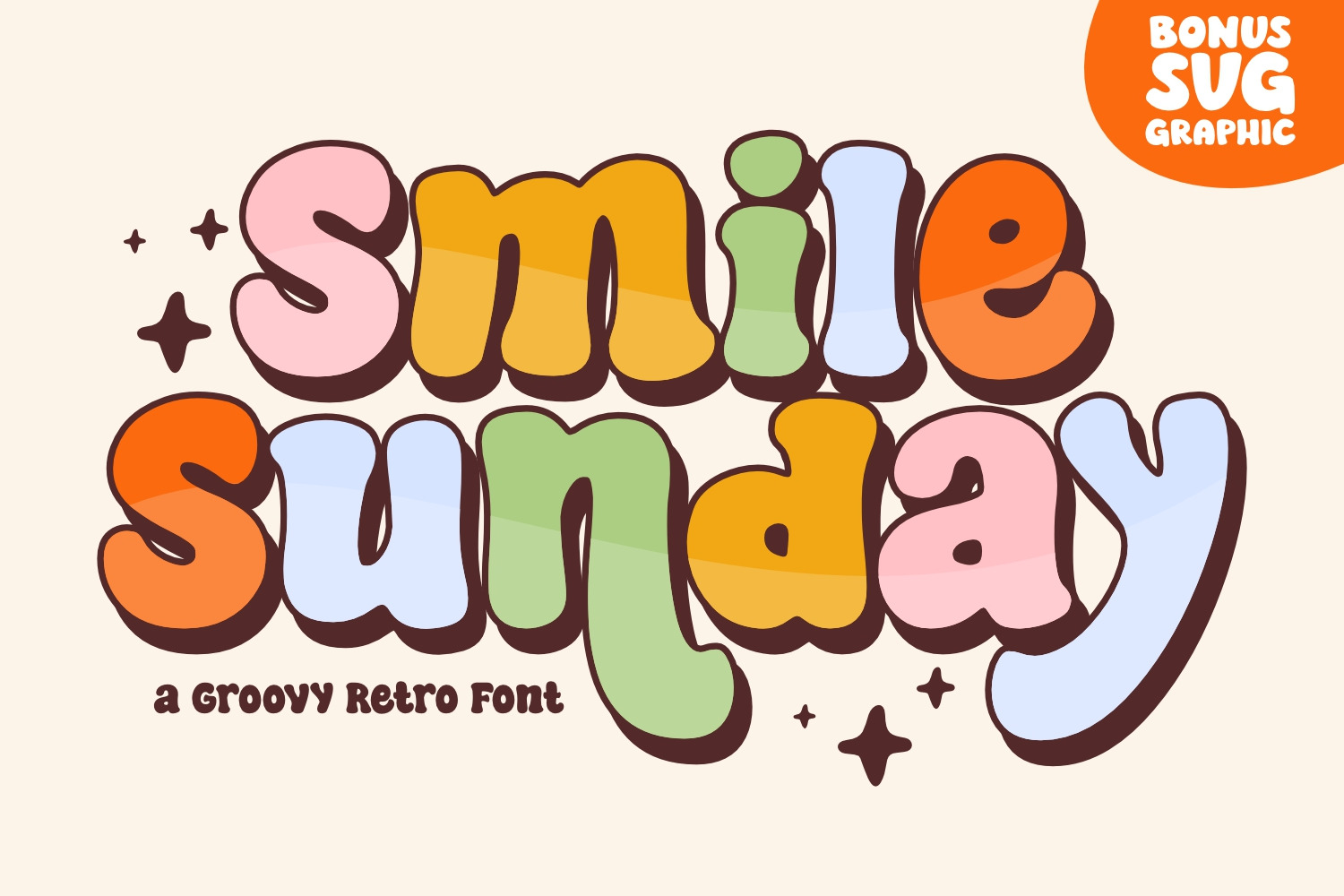
Smile Sunday - Cute Groovy Font
Smile Sunday is a groovy, retro-inspired display font that takes you back to the vibrant and carefree days of the ’70s. Its bold and curvaceous letterforms exude positivity and a sense of fun. Perfect for disco-themed parties, retro designs, or nostalgic branding, Smile Sunday brings a cheerful and nostalgic vibe to any project, spreading joy and smiles.